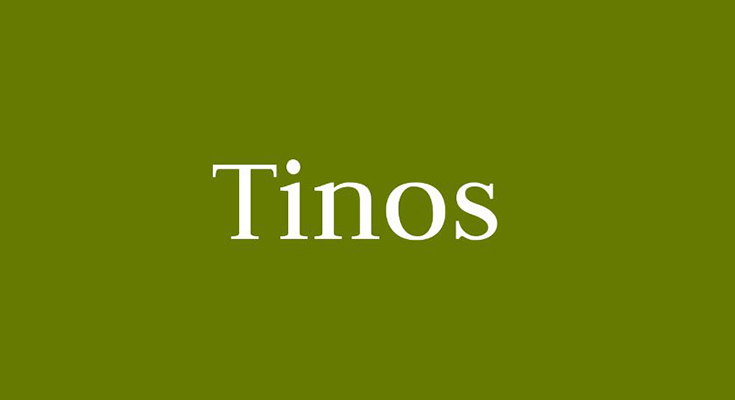
If you are looking for a clean design serif font family then Tinos Font is the best option. Ideal for paragraphs, letters, web content, and more.
It was created by Steve Matteson that is a type designer who has a position as Creative Type Director at Monotype Imaging.
The designer has made it with a sharp texture that can be perfect for short text passages. Each letter has a design with a medium stroke to maintain it throughout the paragraph.
It has come in four different styles with Truetype features. This single style contains 2302 defined characters and 1613 unique glyphs.
It is perfect for later projects and can be used in every area of life. You can create logos, web pages, social media posts, magazines, books, newspapers, documents, reports, certificates, fashion designs, and layouts.
You can use them on any type of screen but they will give you the best result in small-screen projects as it has a lower resolution for large-screen projects.